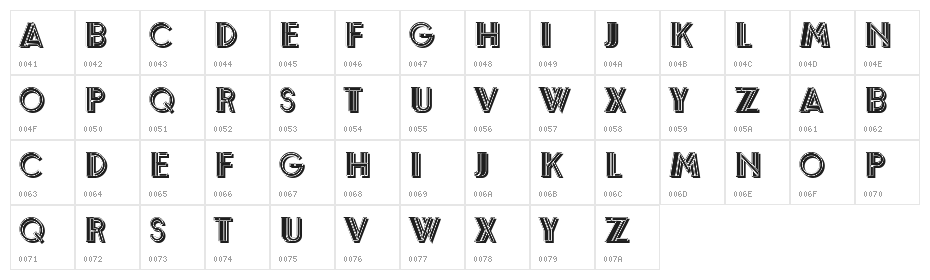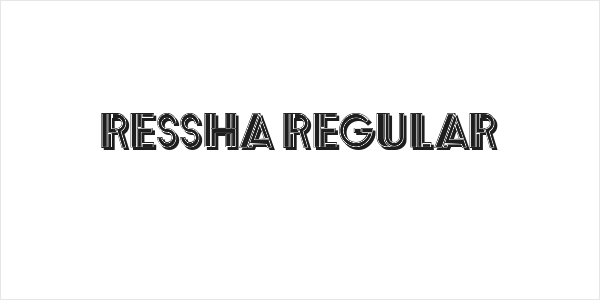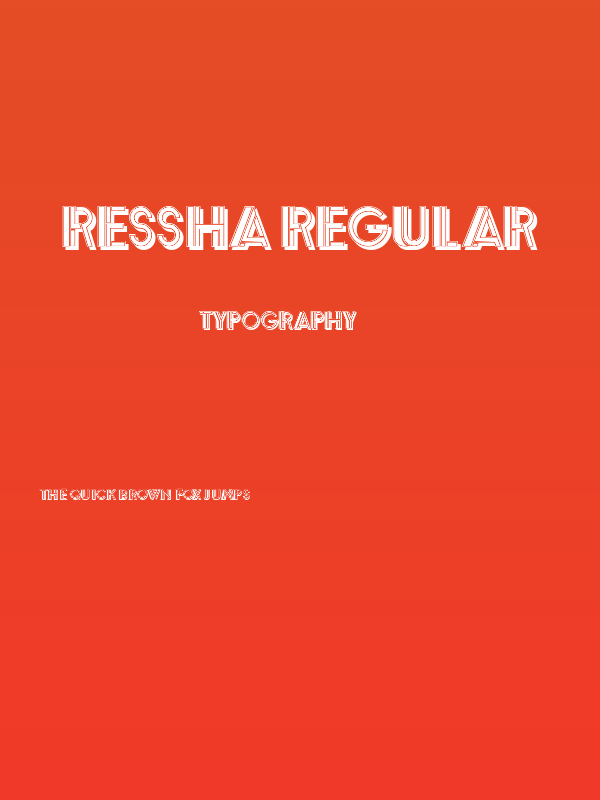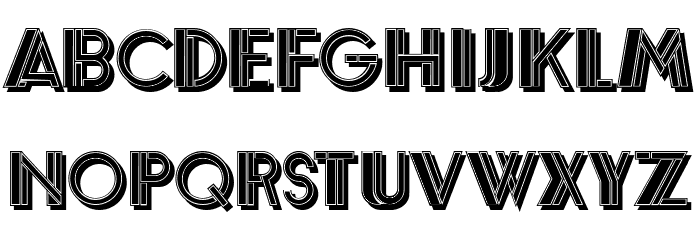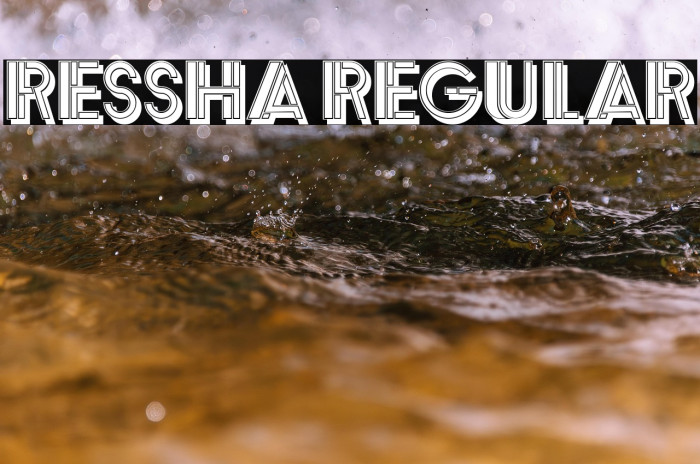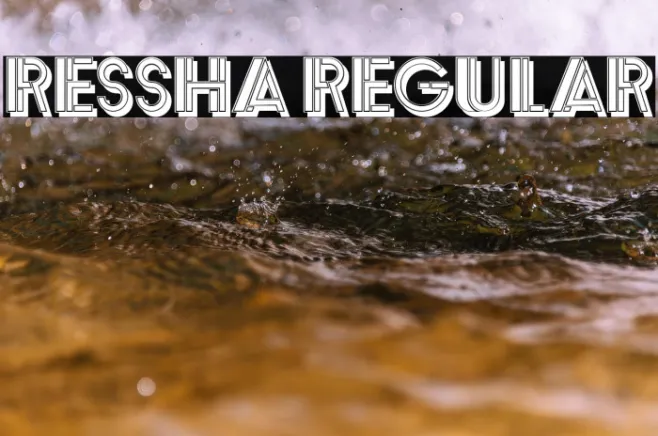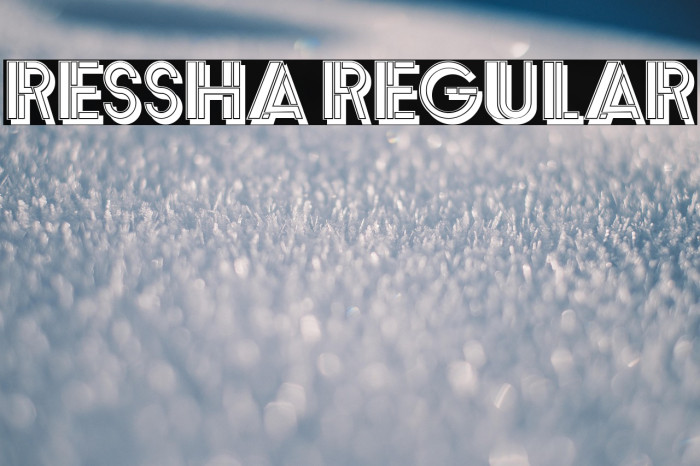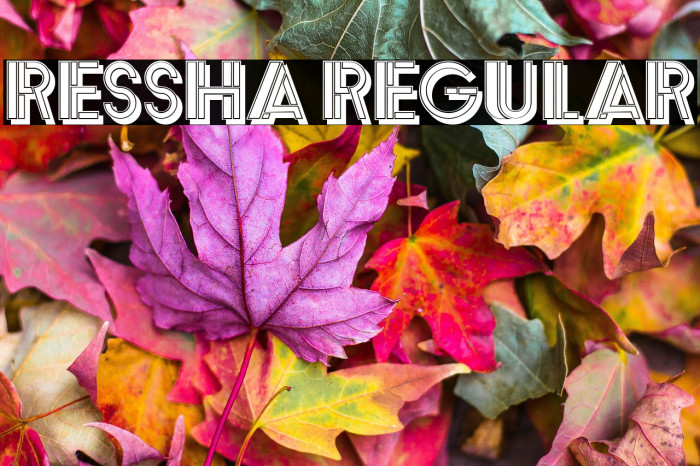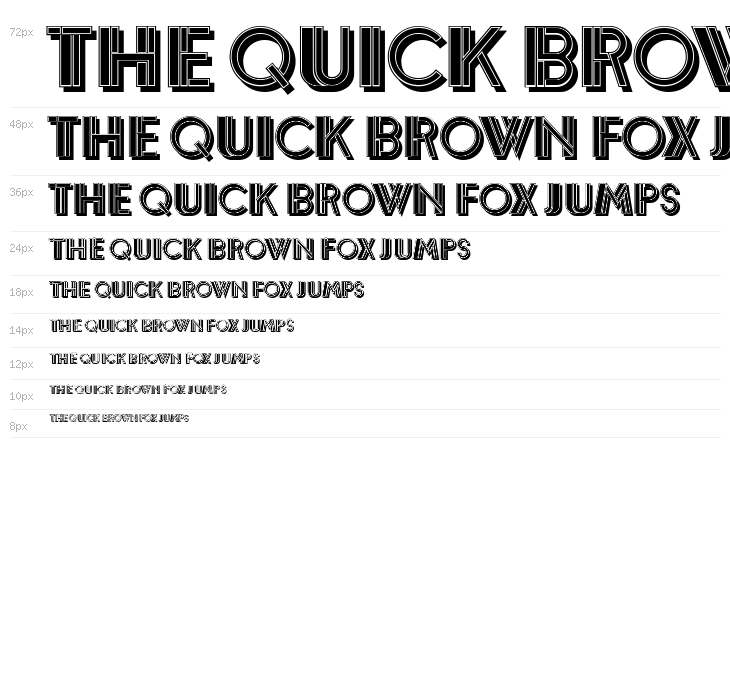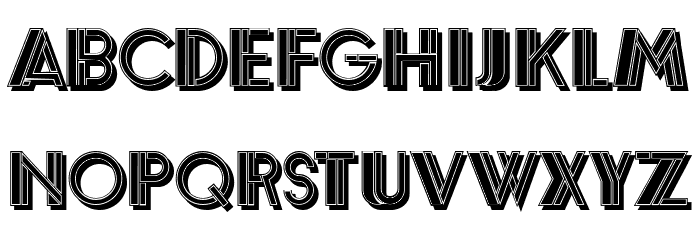
Ressha Regular Font
Ressha Regular Description
This font features a bold and striking design with a layered, three-dimensional effect. Each character is outlined with multiple lines, creating a sense of depth and movement. The uppercase letters are uniform in height, with sharp angles and clean lines that give it a modern and dynamic appearance. The font's geometric structure is consistent throughout, providing a sense of cohesion and balance. The spacing between characters is tight, enhancing its compact and impactful look. This font is ideal for making a statement in headlines or logos, where its boldness and unique style can be fully appreciated.
| Proposed Projects | Ideal for use in headlines, logos, posters, and branding materials that require a bold and modern aesthetic. |